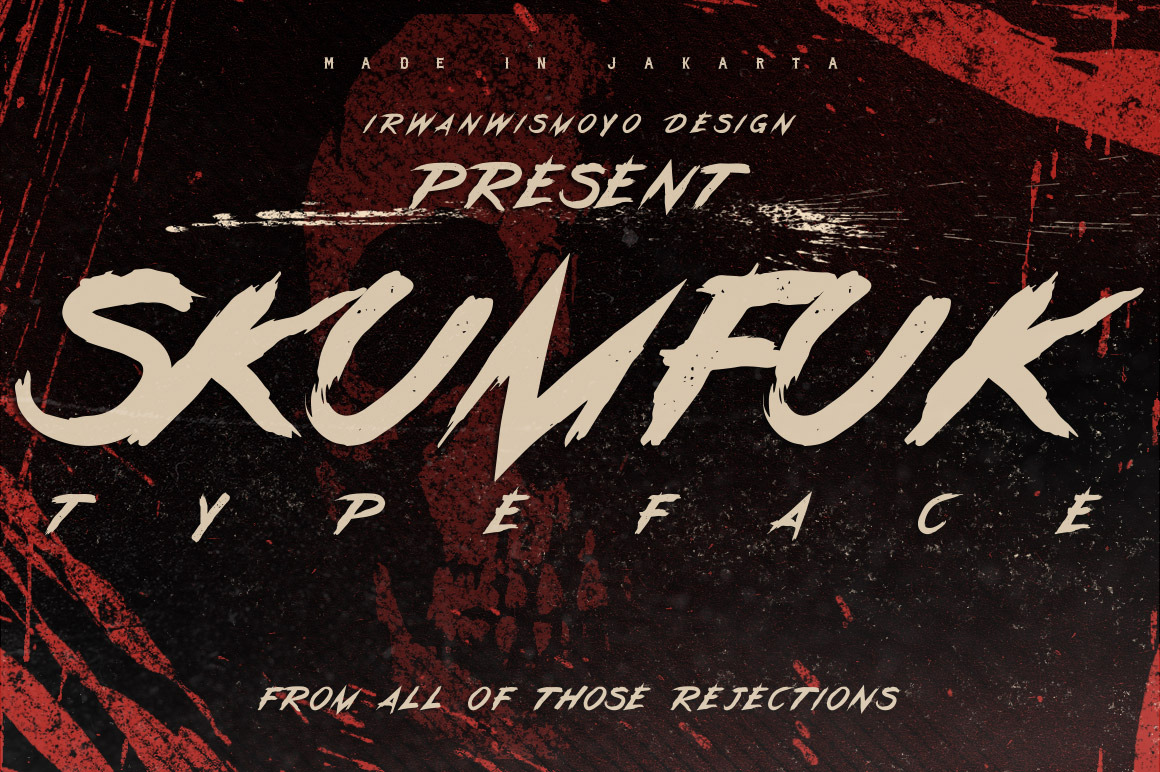
Skumfuk Typeface
Inspired by the rebel youngsters soul that rejected by the most of people, but the truth is they have some potential but people underestimate it
Comes in Uppercase, No Lowercase, Numbers, and some Punctuations
Fit for your band stuff, posters, with brush feels and rebel vibes